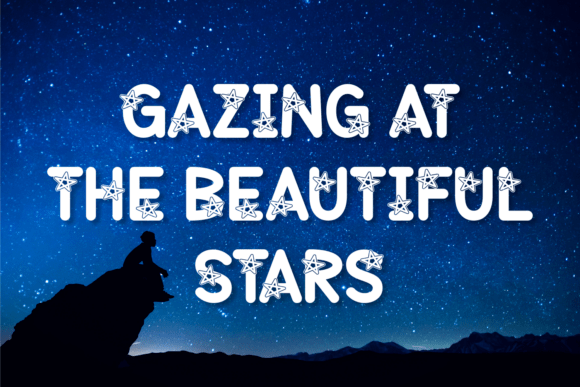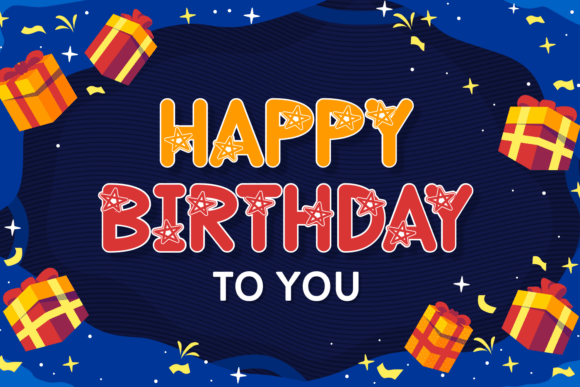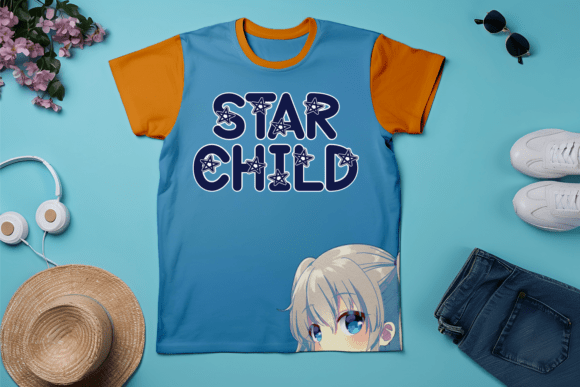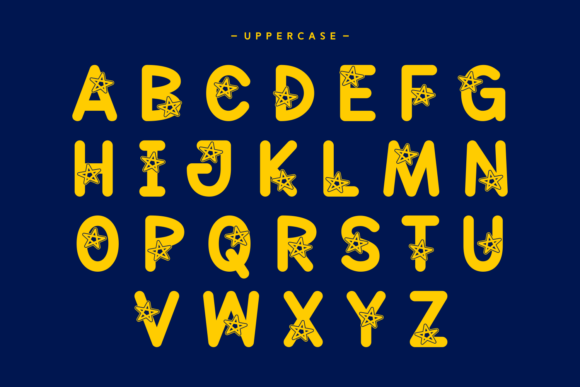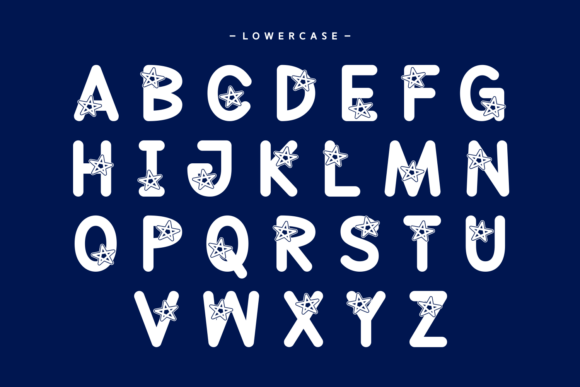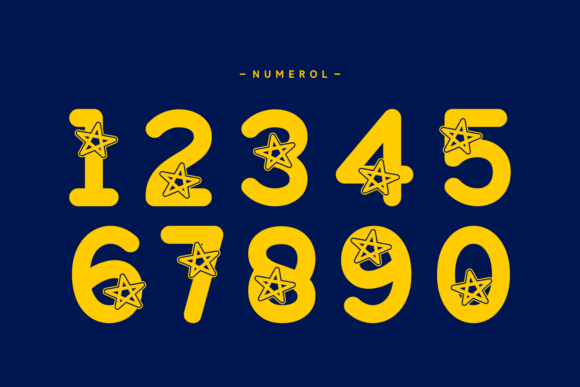
Introducing Calm Star: The Whimsical Font That Brings Magic to Your Designs
Have you ever been in the middle of a design project, and suddenly, you just can’t seem to find the right font? I recall a particularly frustrating moment when a client asked for a “fun, yet elegant” font for their children’s book cover. After hours of scrolling through font libraries, I stumbled upon Calm Star – a delightful decorative font that combines star motifs with vintage elements. It was love at first sight! ✨
A Closer Look at Calm Star
Calm Star is more than just a font – it’s an experience. This unique typographic creation brings the magic of the stars right to your fingertips, making it perfect for adding a dose of charm to any project. Whether you’re working on school assignments, fun-filled children’s literature, eye-catching logotypes, or even a star-studded t-shirt design, Calm Star is suitably versatile to meet your needs.
- ✨ Unique blend of star motifs and vintage elements
- ✅ Multilingual support for communication in numerous languages
- ✅ Irresistible cuteness that’s rapidly gaining popularity
- ✅ Suitable for a wide range of projects, from children’s books to logotypes
While Calm Star is an amazing font, there are a few things to keep in mind: ⚠️ Some of the more intricate glyphs may not display correctly at very small font sizes. 🤔 Additionally, the font’s playful nature may not be the best fit for very formal or corporate designs.
- Experiment with OpenType features, such as stylistic alternates, to add more whimsy to your design
The Backstory Behind Calm Star
While the true story behind Calm Star remains a mystery, it’s easy to imagine that the designer was inspired by the magic of the night sky. Perhaps they wanted to create a font that would bring a sense of wonder and enchantment to everyday designs. Whatever the inspiration, Calm Star is a true gem that shines brightly in the world of typography.
Q: What makes Calm Star so special?
A: Calm Star’s unique blend of star motifs and vintage elements, combined with its multilingual support and irresistible cuteness, make it a standout font.
Q: Is Calm Star suitable for formal designs?
A: While Calm Star is a versatile font, its playful nature may not be the best fit for very formal or corporate designs.